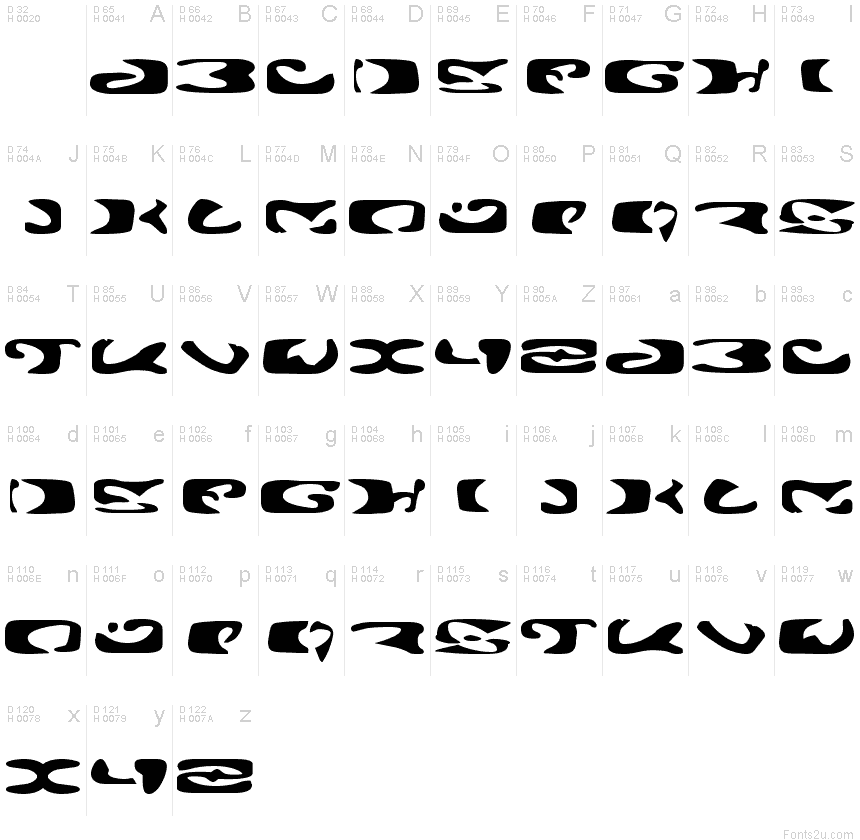
Alien Ghost 2
Alien Ghost 2 font by Levi is a free sci‑fi display typeface that looks like it’s been poured onto the screen in thick, inky liquid. Its wide, squashed letterforms and soft, melted curves create a strange mix of cute and unsettling-like graffiti from another planet. Tight counters and flowing shapes give every word a gooey, otherworldly rhythm that instantly pulls the eye in crowded layouts.
Using Alien Ghost 2, your titles feel more like a logo than simple text, which works beautifully for game covers, experimental posters, glitchy YouTube thumbnails, rave or festival flyers, and sci‑fi zines. This free font shines when set huge and bold, with lots of breathing room around it. Pair Alien Ghost 2 with a clean, narrow sans serif for body copy to keep the weirdness focused where it matters most.